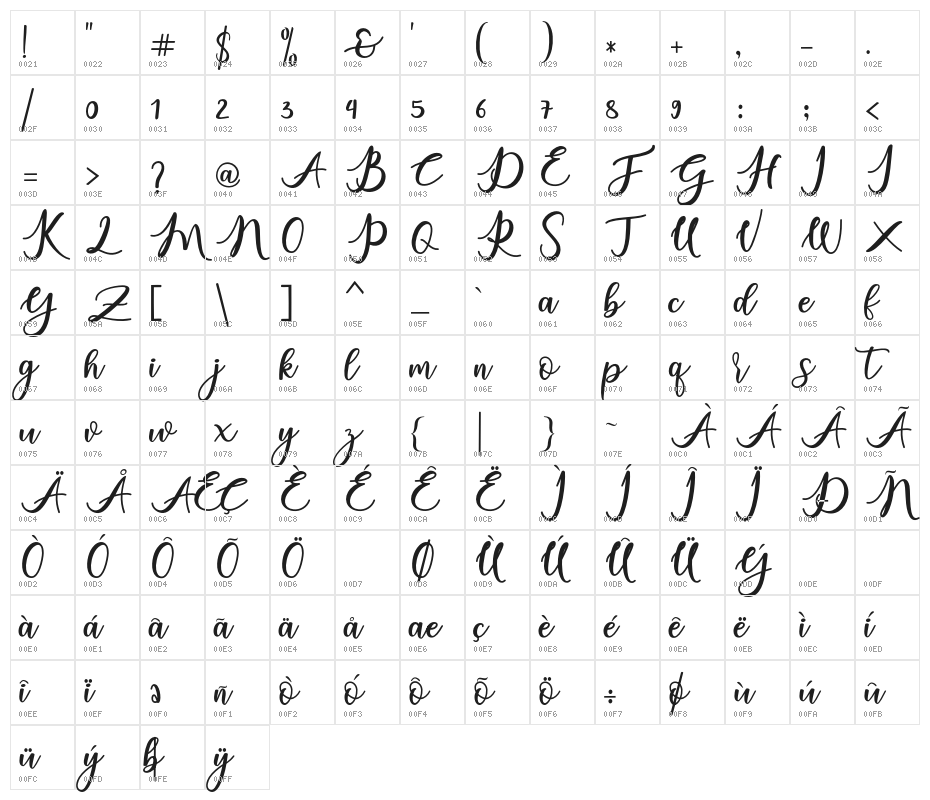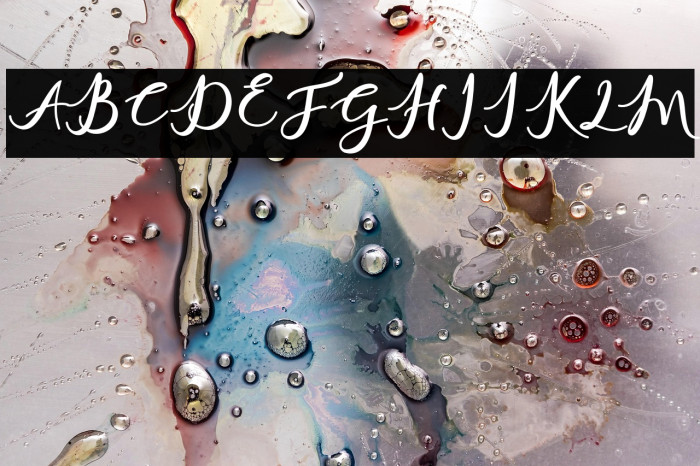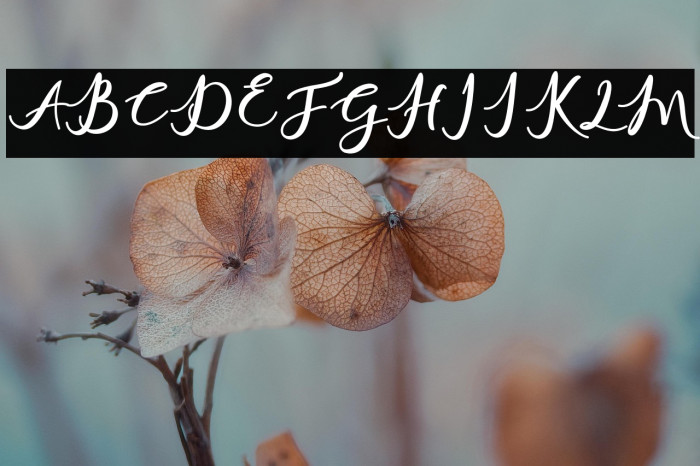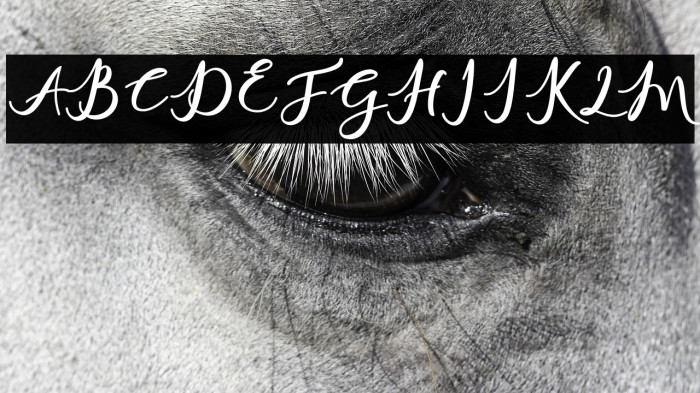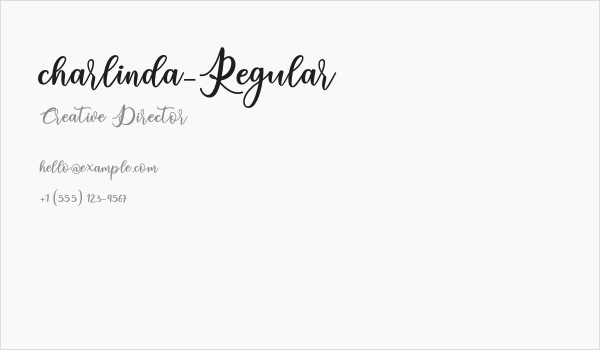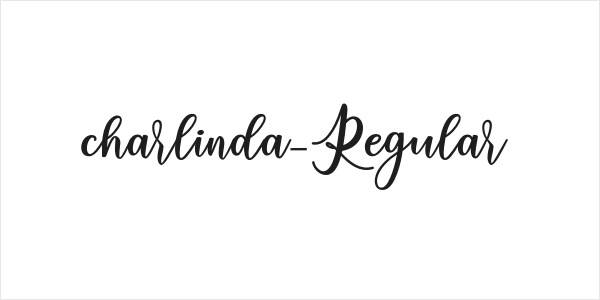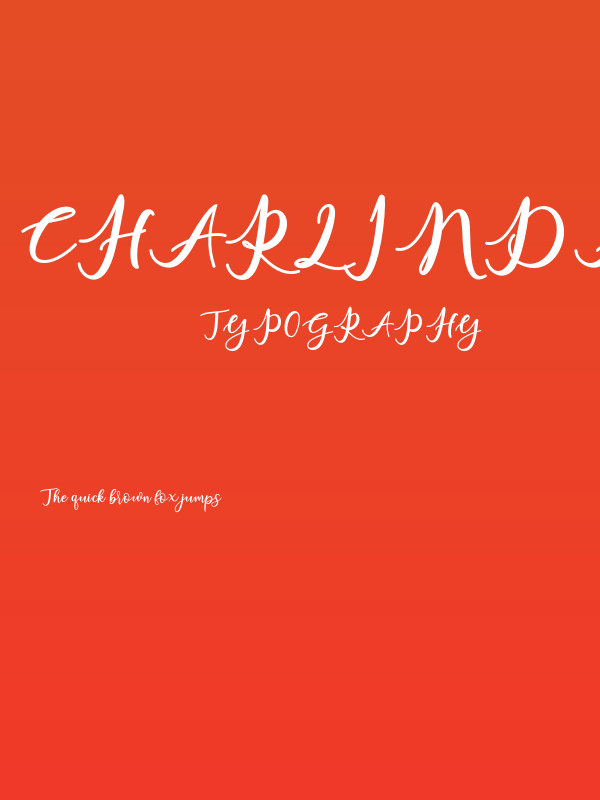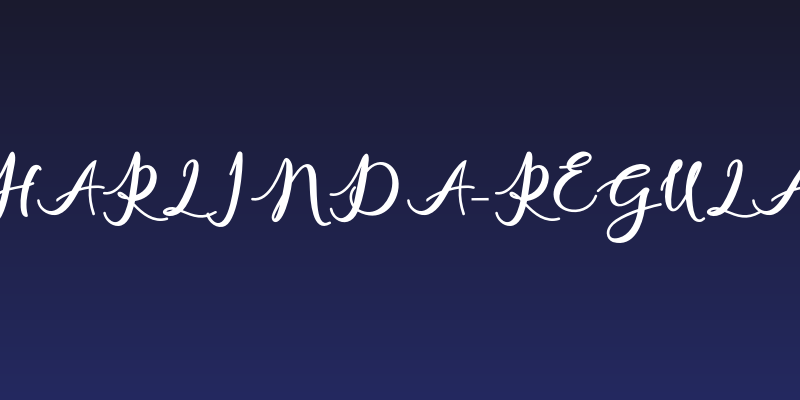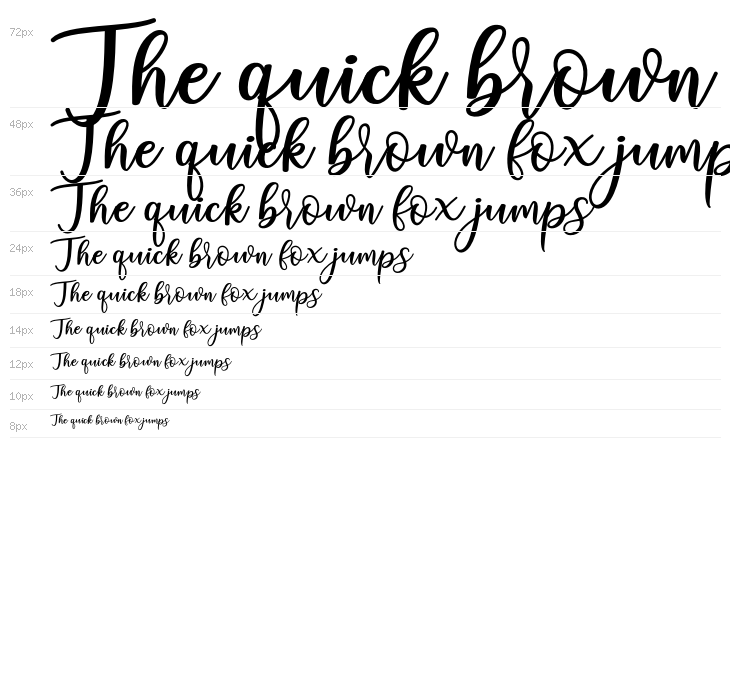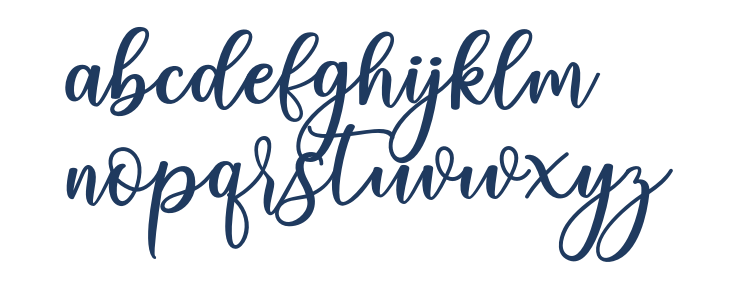
charlinda-Regular Font
charlinda-Regular Description
This font features a flowing, cursive style that exudes elegance and sophistication. The uppercase letters are beautifully crafted with smooth curves and loops, giving them a graceful appearance. The lowercase letters maintain a consistent flow, with some characters extending slightly below the baseline, adding to the font's charm. The numerals are clear and easy to read, while the special characters retain the font's overall aesthetic. This script font is perfect for projects that require a touch of elegance and personality.
| Use Case | Headlines, Invitations, Branding |
| Proposed Projects | Ideal for wedding invitations, greeting cards, branding, and elegant signage. |